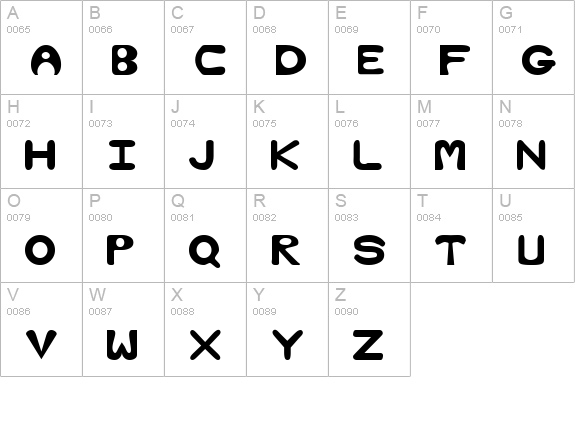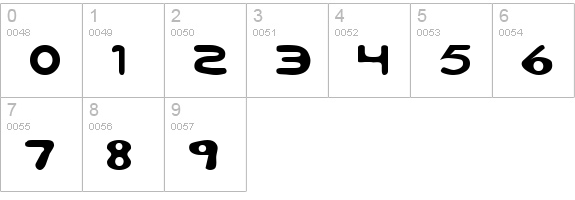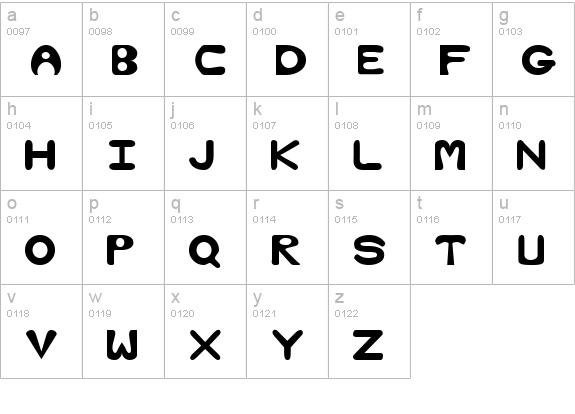
Bubble Regular is the standard, neutral variant in the Bubble typeface family \xE2\x80\x94 well suited to general body text, paragraphs, and standard typographic work.
Bubble Regular font is a fun and playful typeface that will bring a touch of whimsy to your designs. With its rounded edges and smooth curves, this font is perfect for adding a friendly and approachable feel to any project. Whether you're creating greeting cards, posters, or social media graphics, Bubble Regular is sure to make a statement. Best of all, Bubble Regular font is available for free download at FontsMarket.com. This means you can start using this charming font in your projects right away without any cost. Don't miss out on the opportunity to add a touch of fun to your designs with Bubble Regular font. Download it today and let your creativity shine!